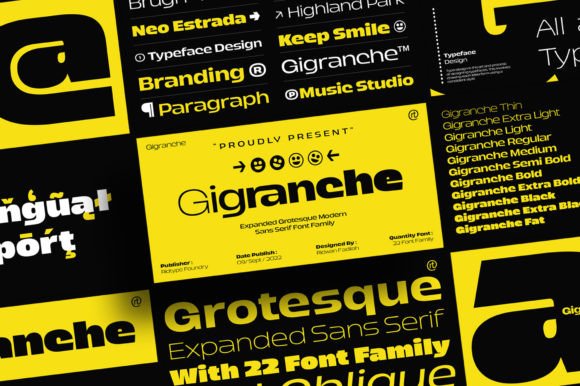
**Introducing Gigranche: A Timeless SANSation for All Your Design Desires!**
Step into a world of timeless elegance with Gigranche, our stunning sans serif font. Crafted by the maestro Ridwanfil, this masterpiece effortlessly exudes the sophistication and versatility that will leave an indelible mark on your designs.
Whether you're crafting a majestic family crest, designing a captivating logo, or penning an enchanting invitation, Gigranche's crisp lines and alluring curves will captivate your audience. Its impeccable readability guarantees a smooth and seamless experience, making your words dance off the page with grace.
**Unleash Your Design Potential with Gigranche:**
- **Classic Appeal:** Timeless and sophisticated, Gigranche adds a touch of refinement to any creative endeavor.
- **Infinite Versatility:** From elegant invitations to captivating logos, this font seamlessly adapts to a myriad of design concepts.
- **Unforgettable Impressions:** Make a lasting impact with Gigranche, where every letter is an art form that captures attention and ignites imagination.